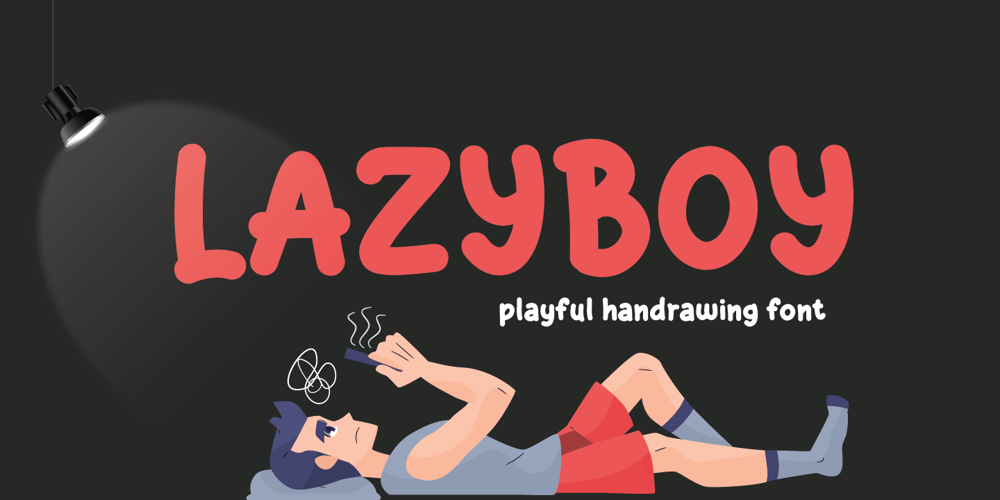
Lazyboy
Lazyboy font
Lazyboy Font Family was designed by Studio LetterStock and published by LetterStock. Lazyboy contains 1 styles and family package options. Lazyboy is modern sans font insprire by modern grotesque with geometric details and deep in industrial design principles.Lazyboy is a perfectly choice for any creative endeavor, chic, lifestyle design such as logos, advertisements, watermark on photography, stationery, branding project, display and magazine, invitation, corporate brand, product design, label, business project and many other project with elegant touch.What you have: Standart Glyphs Numberial and Functional Works on PC & Mac Simple installations Accessible in Adobe Illustrator, Adobe Photoshop, Adobe InDesign, even work on Microsoft Word. Fonts include Multilingual Character for: Afrikaans, Albanian, Asu, Basque, Bemba, Bena, Breton, Chiga, Cornish, Dutch, English, Estonian, Filipino, Finnish, Friulian, Galician, Gusii, Indonesian, Irish, Italian, Kabuverdianu, Kalenjin, Kinyarwanda, Luo, Luxembourgish, Luyia, Machame, Makhuwa-Meetto, Makonde, Malagasy, Manx, Morisyen, North, Ndebele, Nyankole, Oromo, Portuguese, Quechua, Romansh, Rombo, Rundi, Rwa, Samburu, Sango, Sangu, Scottish, Gaelic, Sena, Shambala, Shona, Soga, Somali, Spanish, Swahili, Swedish, Swiss, German.Thank you for your purchase!Hope you enjoy with our font!